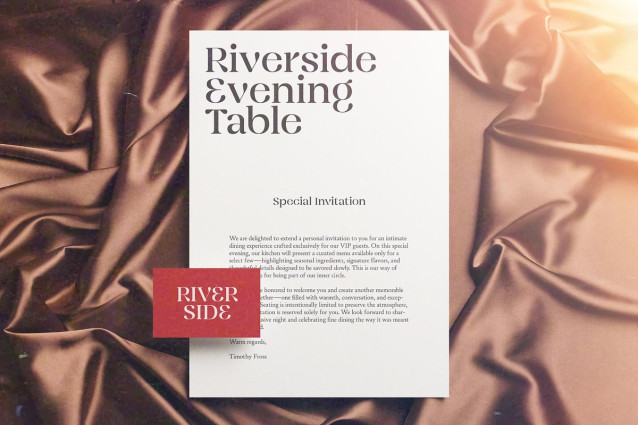
Soulrise Font
Soulrise Font is a refined display serif that radiates femininity, warmth, and timeless elegance. Designed with high contrast strokes and graceful details, this typeface feels both unique and expressive while remaining beautifully sophisticated. Its elegant character makes Soulrise a perfect choice for headlines, logos, business cards, invitations, packaging, editorial designs, and any project that calls for a soft yet confident visual presence. The combination of delicate curves and striking contrast gives Soulrise a luxurious, warm, and memorable personality—ideal for brands and designs that want to feel personal, elegant, and full of charm.